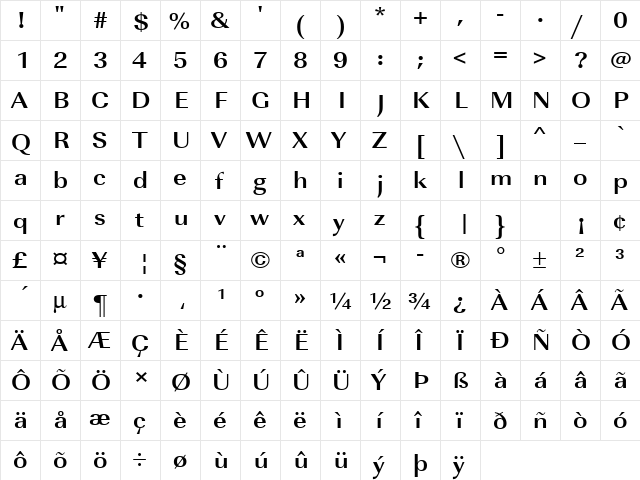
URWImperialTExtWid Bold Font Preview
URWImperialTExtWid Bold
URWImperialTExtWid Bold Font Details
Design Context for URWImperialTExtWid Typeface
URWImperialTExtWid takes a measured approach to typography — its balanced proportions and neutral character make it a reliable workhorse for both digital and print work. The heavy weight commands attention and anchors typographic hierarchies.